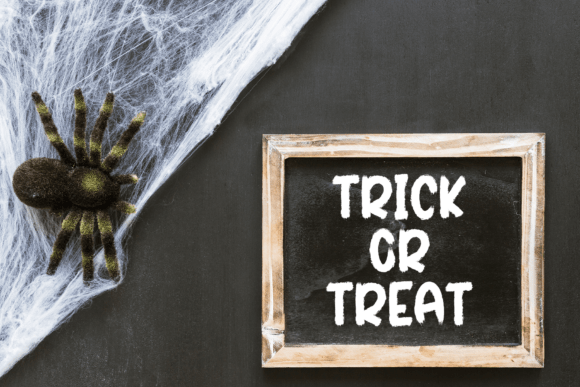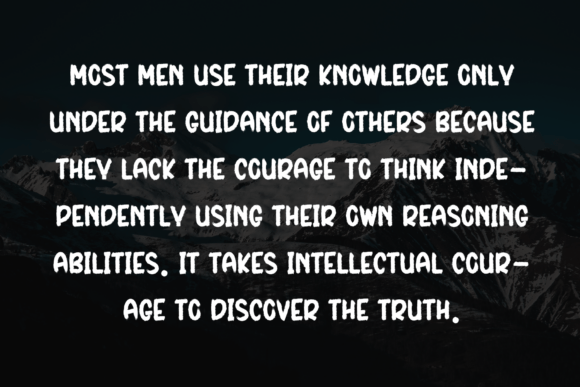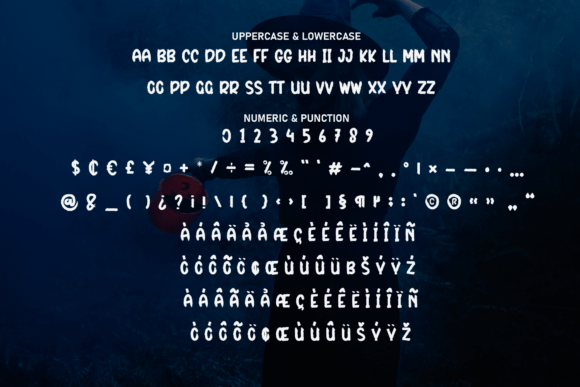
Introduction to Scary Witch Font
As designers, we’ve all been there – staring at a blank canvas, trying to conjure up the perfect design for a creative project. Sometimes, all it takes is the right font to spark inspiration. For those moments, the Scary Witch Font is here to cast a spell of creativity. This charming display font is more than just a pretty face – it’s a valuable design resource that can elevate your branding, packaging, and digital content to the next level.
With its clean lines, balanced letterforms, and subtle rounded edges, the Scary Witch Font exudes a friendly, approachable vibe that’s perfect for designers looking to add a touch of warmth and invitation to their designs. Whether you’re working on a high-quality design project or simply need a free download to spice up your digital content, this font is sure to deliver.
Key Features of Scary Witch Font
- Unique Gothic-inspired design with a mystical and eerie feel, perfect for a creative project.
- High-quality font with transparent background, ideal for use as a design resource in various creative applications.
- Includes a range of characters, including uppercase and lowercase letters, numbers, and special symbols.
- Designed with a large x-height, making it highly legible even in smaller font sizes.
- Resolution-independent, ensuring crisp and clear text output at various resolutions.
- Perfect for use in Halloween-themed designs, horror movies, and other spooky creative projects.
Honest Review: Scary Witch Font
As a designer, I was excited to try out the Scary Witch Font for my latest creative project. I was looking for a unique and spooky font to add some atmosphere to my design. After downloading and experimenting with the font, I have some honest thoughts to share.
- High-quality design: The Scary Witch Font has a crisp and clear design that looks great on both light and dark backgrounds.
- Transparent background: This feature allows for seamless integration with other design elements and adds to the overall spooky aesthetic.
- Limited character set: The font only includes a limited set of characters, which may not be suitable for more complex design projects.
- No font variations: There are no variations of the font available, which can limit its creative potential.
Overall, the Scary Witch Font is a great addition to any designer’s toolkit, especially for creative projects that require a spooky atmosphere. While it has some limitations, its high-quality design and transparent background make it a valuable design resource. I would definitely recommend it to fellow designers looking for a unique font to spice up their designs.
How to Use Scary Witch Font
The Scary Witch Font is a free download design resource ideal for creative projects requiring a touch of magic and mystery. Its high quality and unique design make it a great addition to any project, whether it’s a spooky Halloween theme or a whimsical fantasy world.
Tips for Getting the Most Out of Scary Witch Font
To get the most out of the Scary Witch Font, use it with a transparent background to create a spooky or mystical effect. Experiment with different font sizes and colors to create a unique design element.
The Scary Witch Font is perfect for Halloween-themed designs, fantasy book covers, or any project requiring a touch of magic and mystery. It’s also great for designers looking for a unique and high-quality design resource.
Alternatives to Scary Witch Font
Witchy Woman Font
The Witchy Woman Font is a high-quality, hand-drawn font perfect for designers working on a creative project that requires a unique and mystical touch. It features a transparent background, making it ideal for designs with a minimalist approach. This font is suitable for use in titles, headings, and other design elements where a touch of magic is needed.